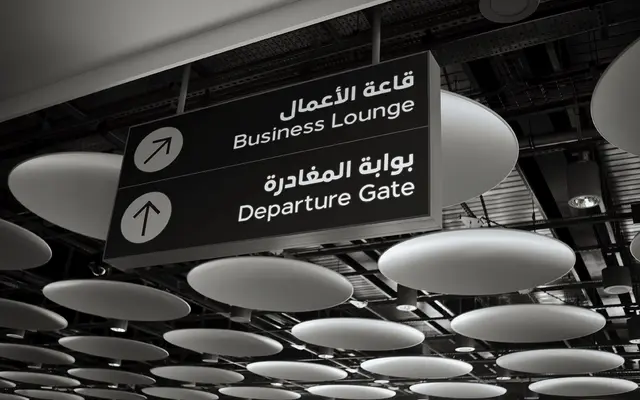
Loew Next Arabic
A geometric sans family that extends Loew Next into Arabic script, designed to pair with its Latin counterpart across bilingual settings.
Loew Next Arabic adapts the clean geometry of the Loew family for Arabic script, with careful attention to Arabic proportions, rhythm and calligraphic tradition. The family ships in eight fonts and supports advanced OpenType features including localised forms and initial, medial and final forms, as well as alternate lowercase forms and small caps with accents for the Latin side. Intended for design work that must remain visually consistent across Arabic and Latin text.
Loew Next Arabic extends the geometric sans design of Loew into Arabic script, maintaining the clean, modern proportions of the Latin family while respecting Arabic calligraphic tradition.